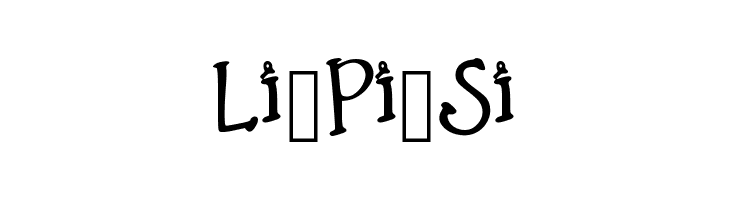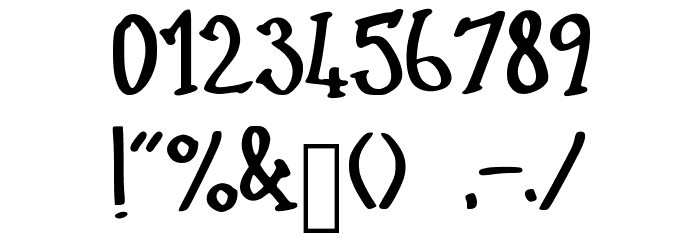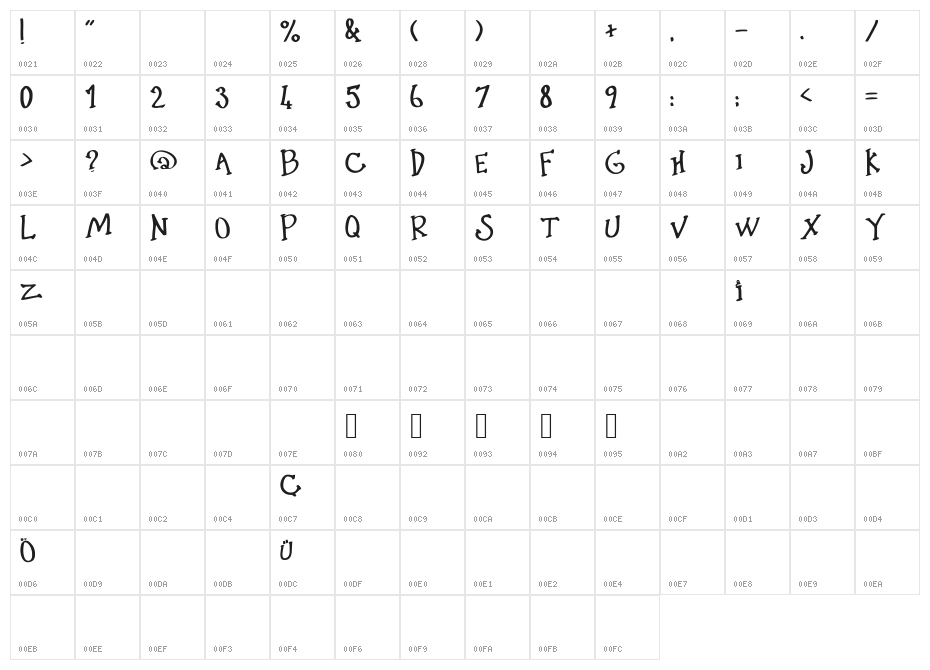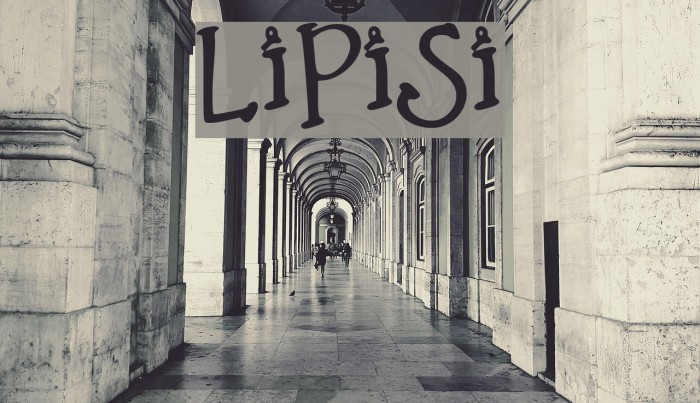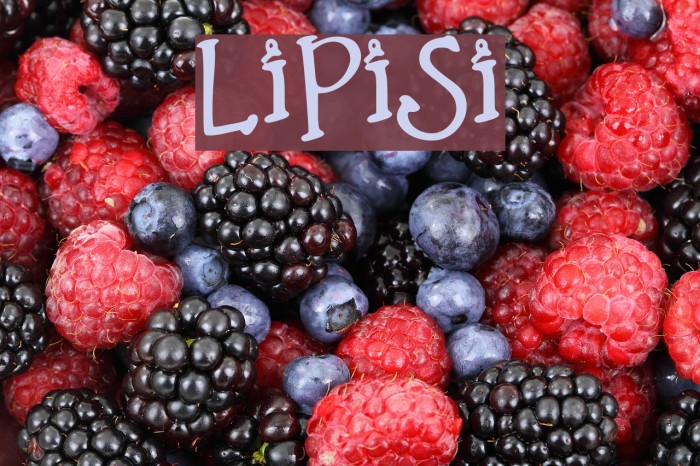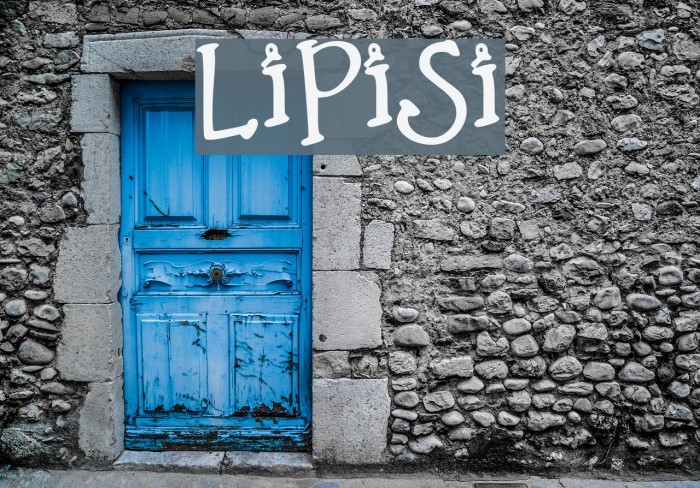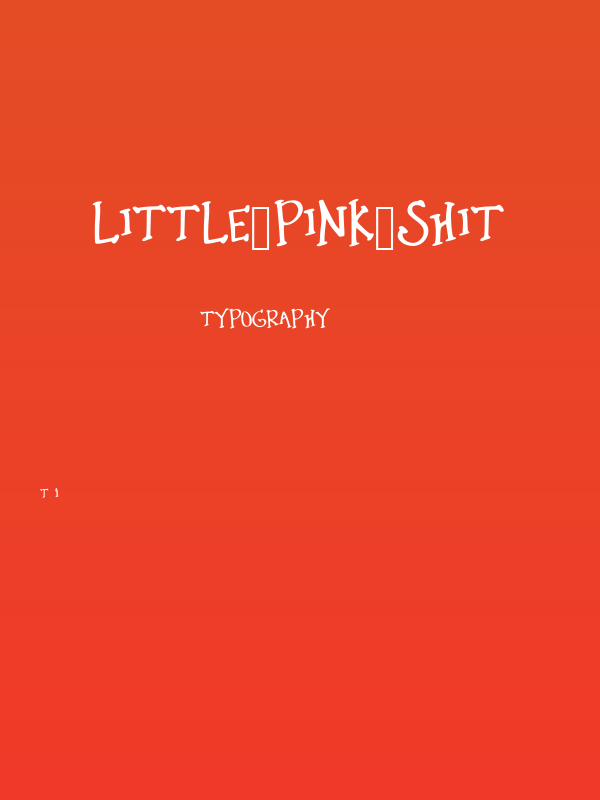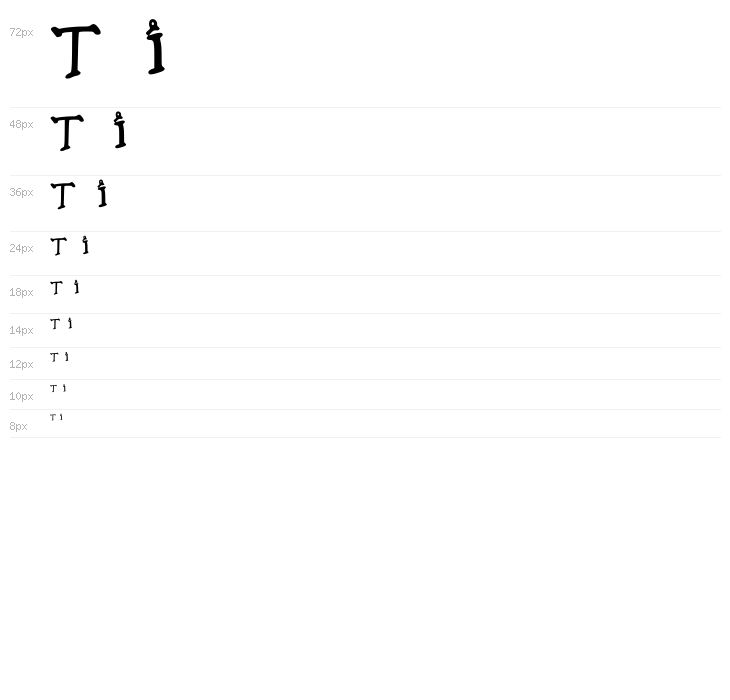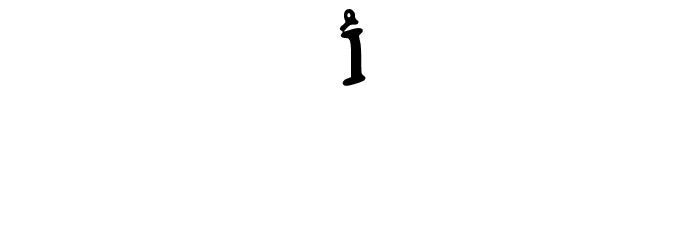
Little_Pink_Shit Font
Little_Pink_Shit Description
This font exhibits a playful and whimsical style, characterized by its irregular and slightly exaggerated letterforms. The uppercase letters have a hand-drawn quality, with varying stroke widths that add a sense of movement and energy. The lowercase letters maintain this playful aesthetic, with some characters featuring unique loops and curves. The numbers and special characters continue this theme, offering a cohesive and lively appearance throughout the set. The font's overall style is informal and creative, making it suitable for projects that require a touch of fun and personality.